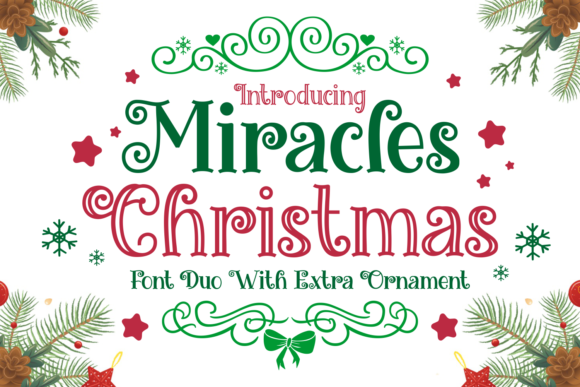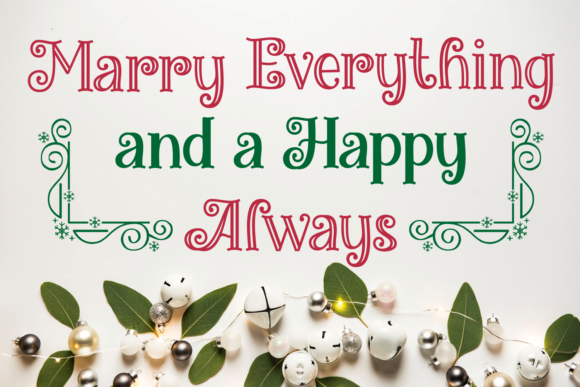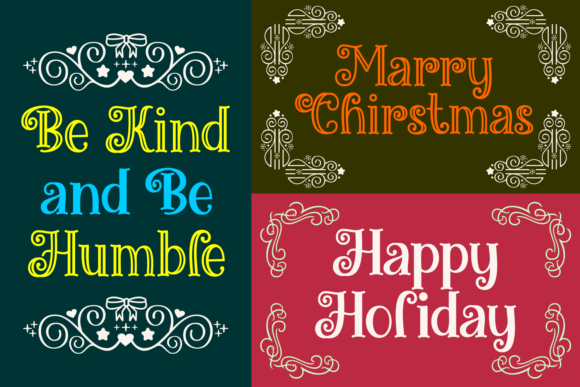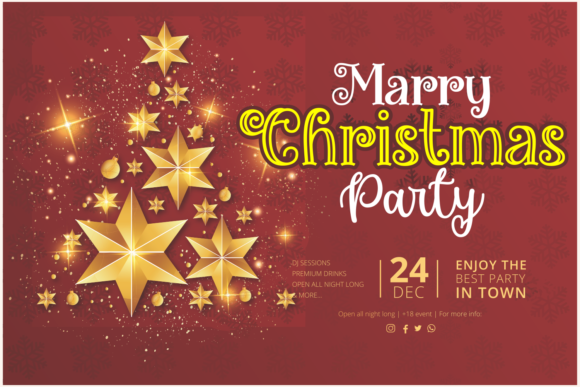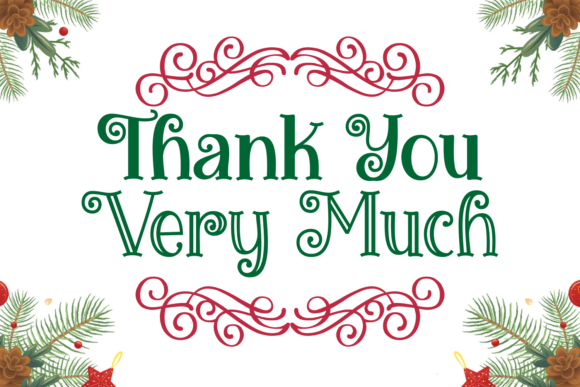
Miracles Christmas Font
Miracles Christmas is a rich and festive looking display font. It is ideal for holiday-themed greeting cards and for any crafting project that requires a joyful touch.